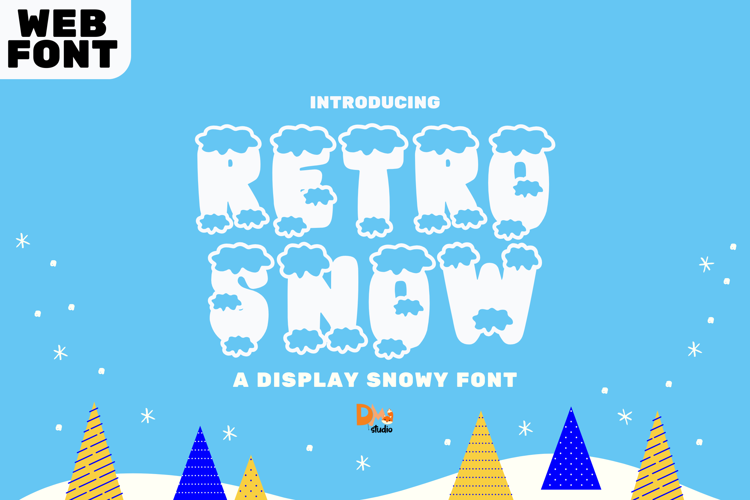
Retro Snow Font
Retro Snow Font is a nostalgic and playful typeface inspired by vintage holiday vibes and snowy winter days. With its groovy letterforms and frosted flair, this font brings retro charm and seasonal warmth to all your festive designs. It’s perfect for Christmas cards, winter event posters, cozy branding, apparel, and everything in between!
Let your creativity snowball with Retro Snow – where retro meets winter magic!
• ❄️ Retro-Inspired Style: Groovy curves and playful design elements infused with wintry charm.
• 🌨️ Perfect for Seasonal Projects: Ideal for holiday cards, winter merchandise, event flyers, and more.
• 🧤 Warm & Cozy Feel: A fun blend of nostalgia and holiday cheer.